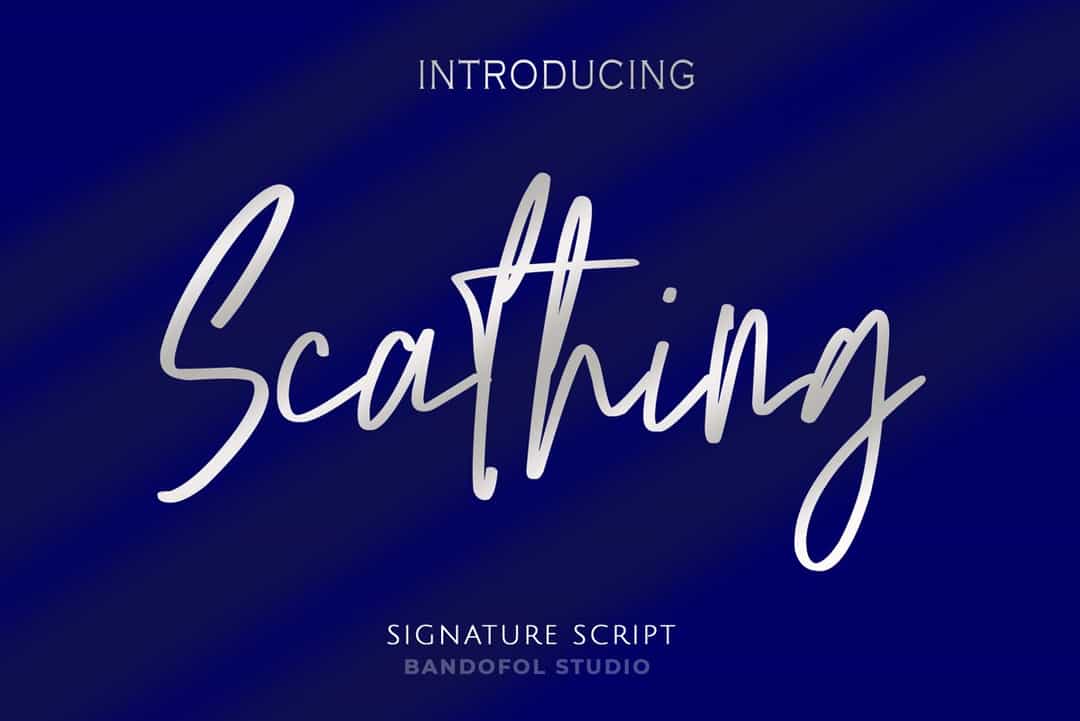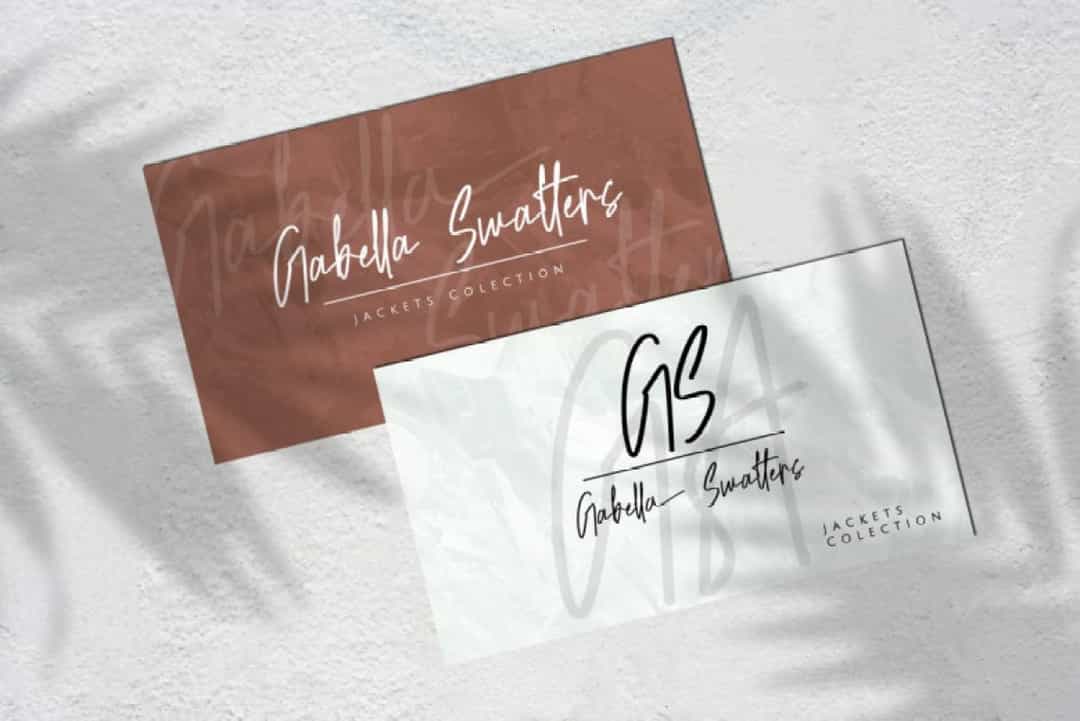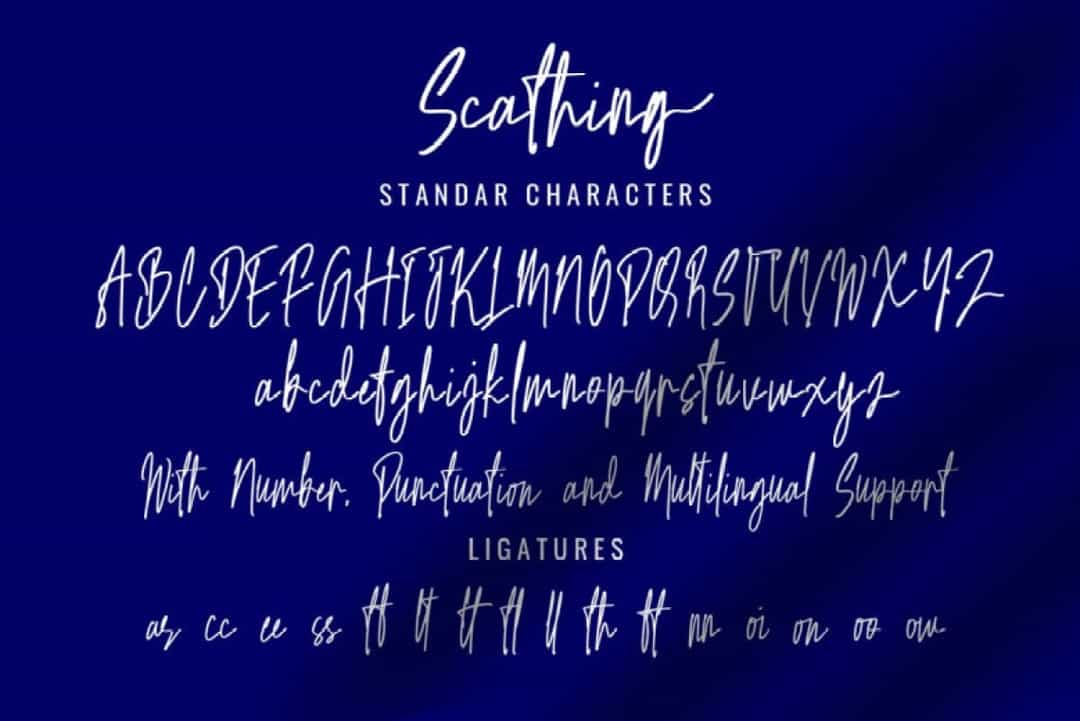
Discover Scathing Font, part of the Handwritten Script collection—a versatile and unique font perfect for adding a personal touch to your projects. Download it for free and enjoy crafting designs with style, from invitations to social media posts. This font is available exclusively for personal use, giving you the freedom to create without limits. Unlock your creativity with Scathing Font today!
Scathing font is a modern one and have its own unique look about it. Made with a small pen and natural pull, Scathing font is suitable for photo editing, product decoration and food design, for instance weddings. Thus, it can be said that this font is versatile and may be used in quotes, sports events, or even posters.